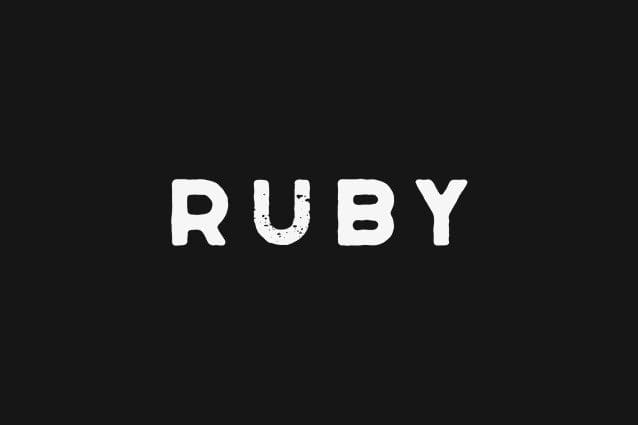
Ruby Display Font
Ruby Display Font is an elegant and versatile display font that will make your typography truly unique! It will enchant every logo, branding, headline, or plain text!